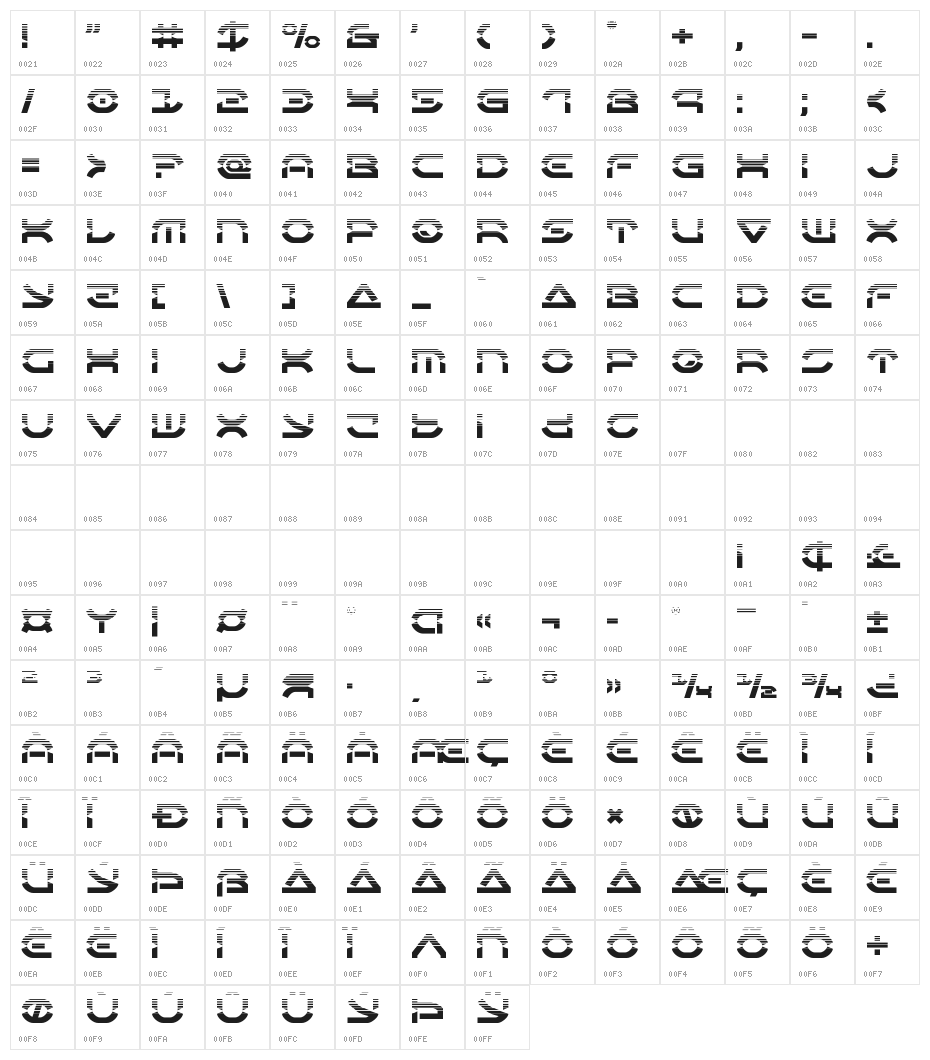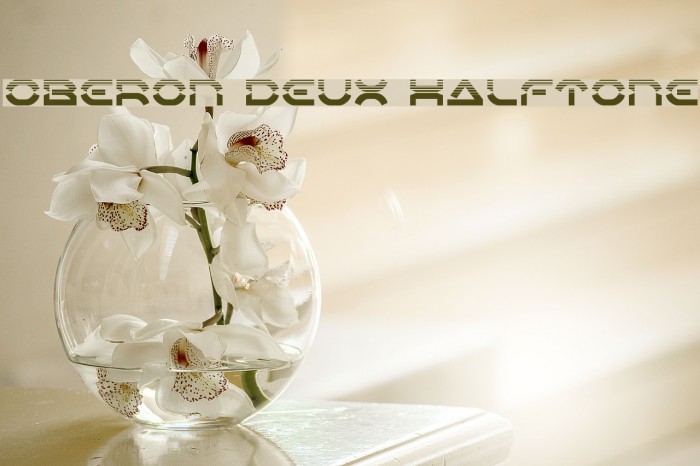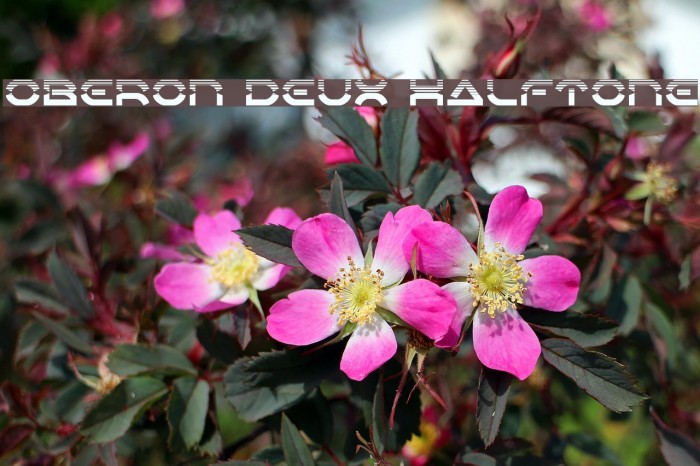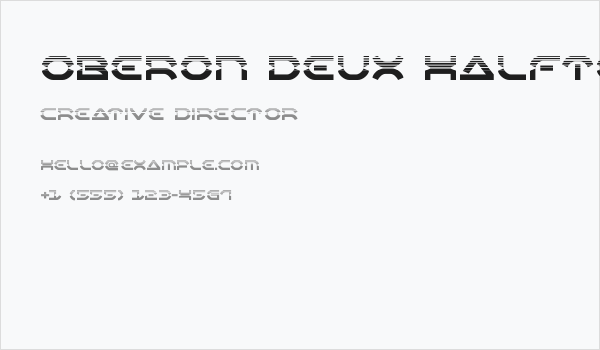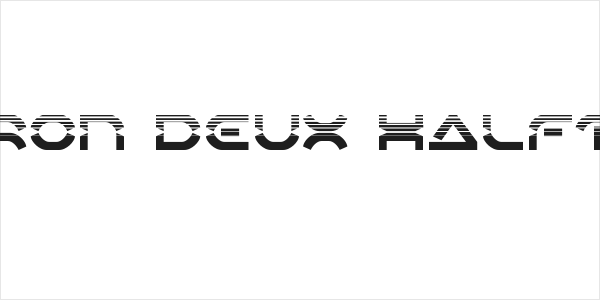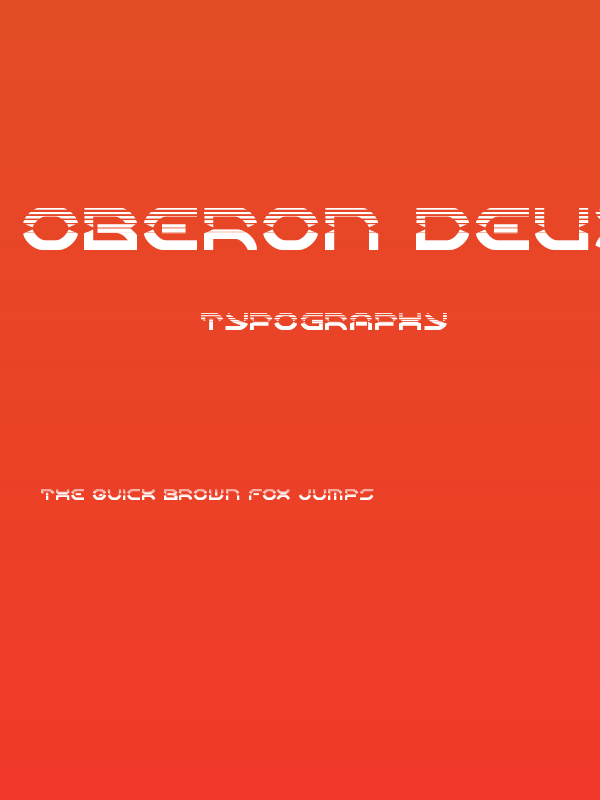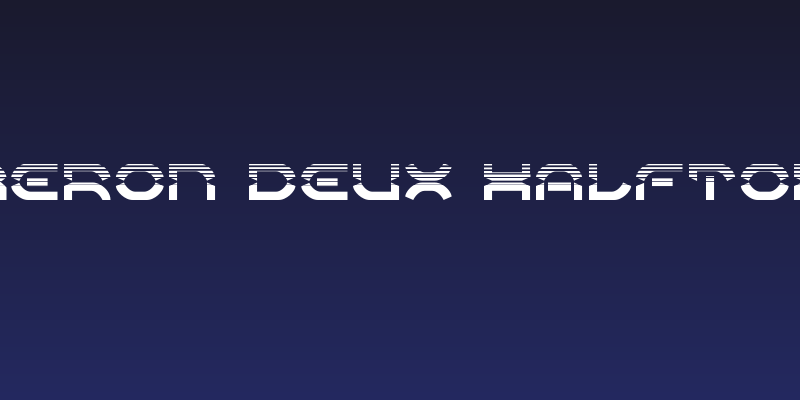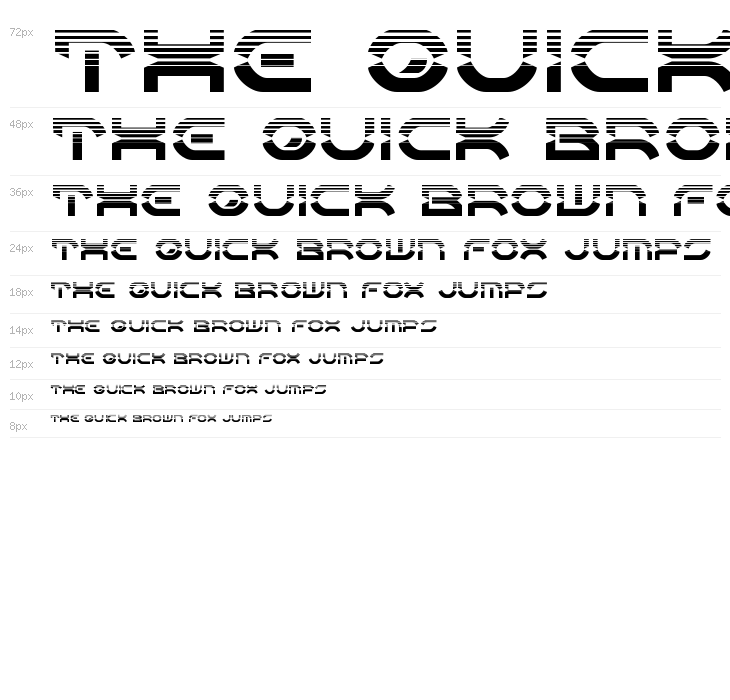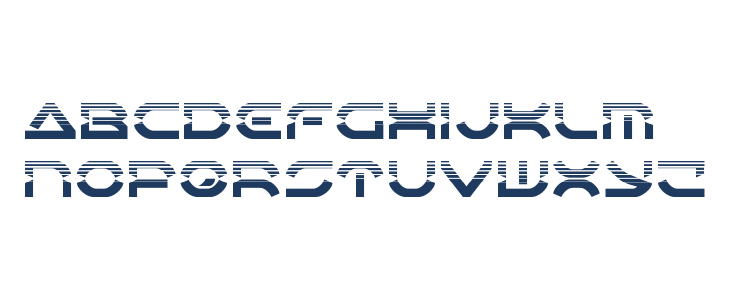
Oberon Deux Halftone Font
Oberon Deux Halftone Description
This font features a unique halftone effect, combining bold geometric shapes with horizontal lines that create a visually striking pattern. The uppercase and lowercase letters maintain a consistent style, emphasizing angular forms and sharp edges. Numbers and special characters follow the same design principles, ensuring a cohesive look across all glyphs. The font's distinct appearance makes it ideal for projects that require a futuristic or tech-inspired aesthetic. Its bold presence and intricate detailing make it stand out in any design context.
| Proposed Projects | Ideal for sci-fi posters, tech branding, video game titles, and modern digital art. |